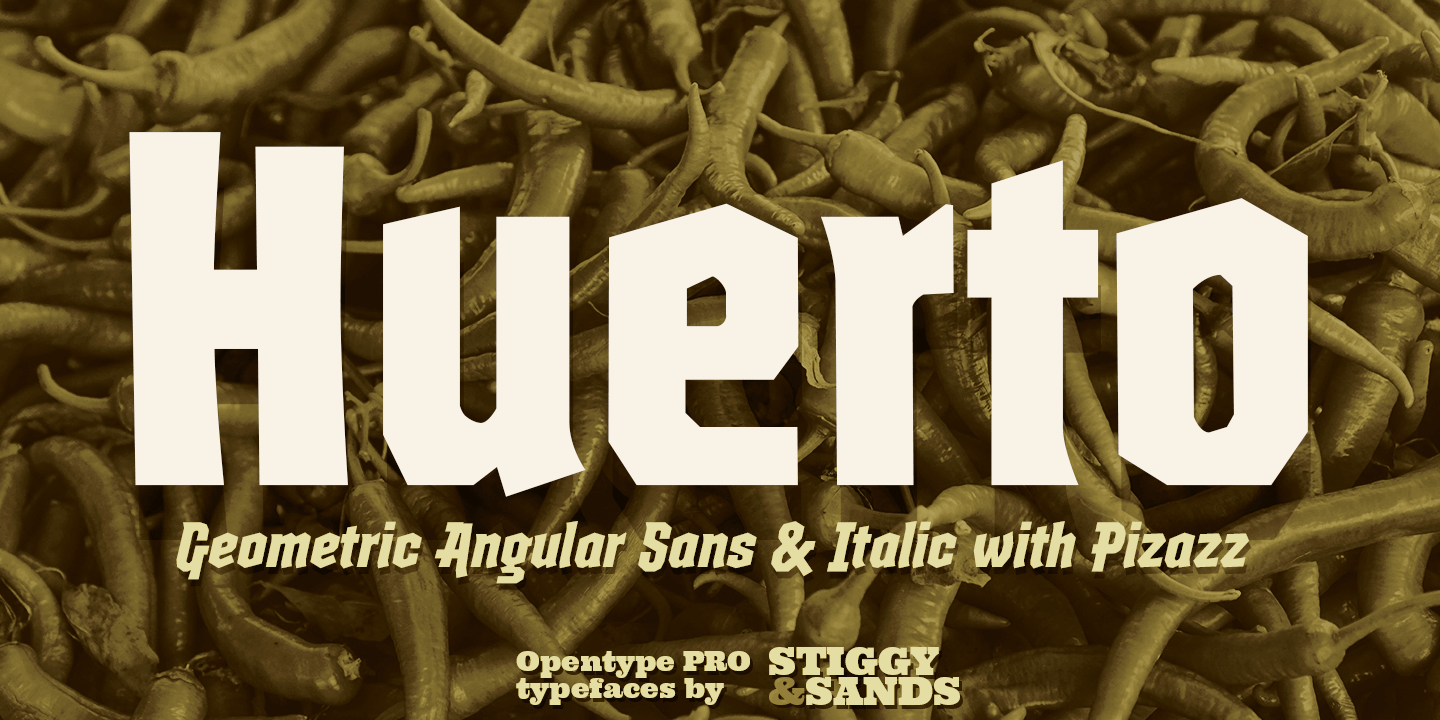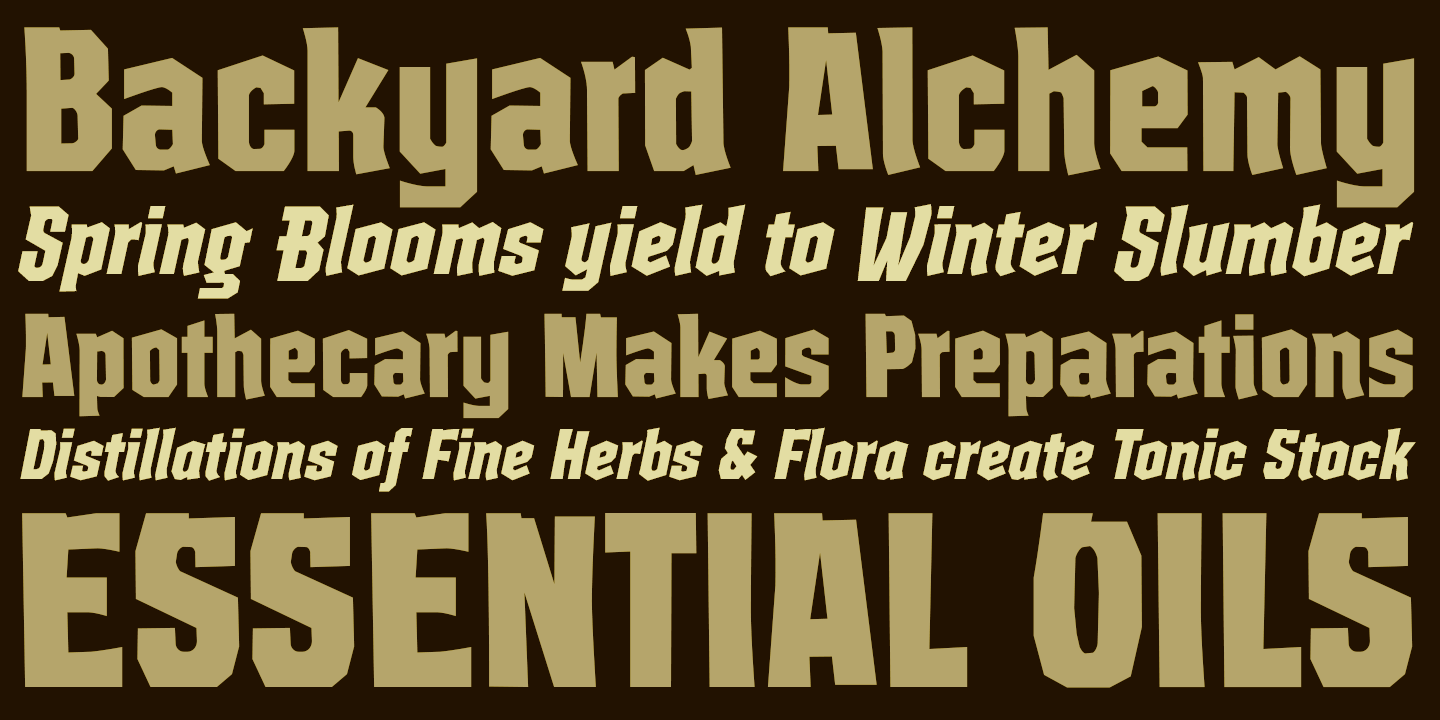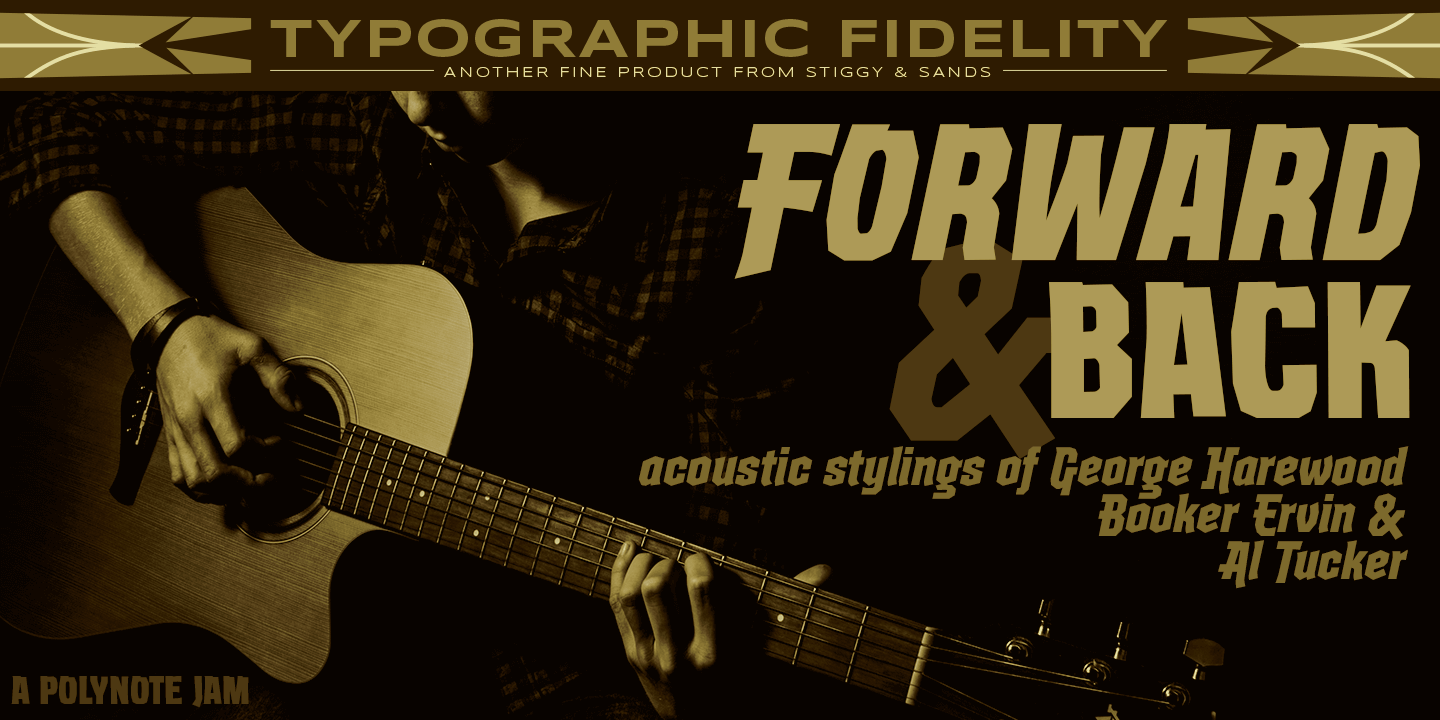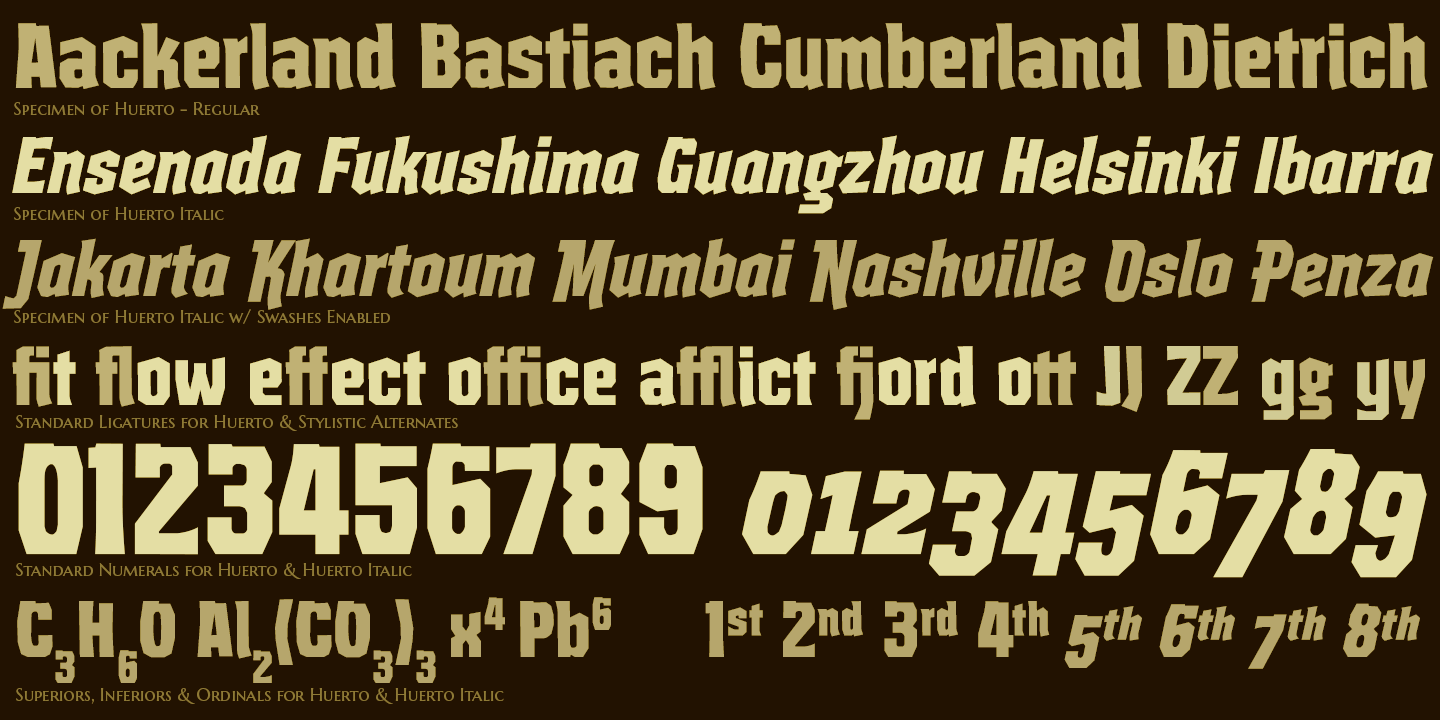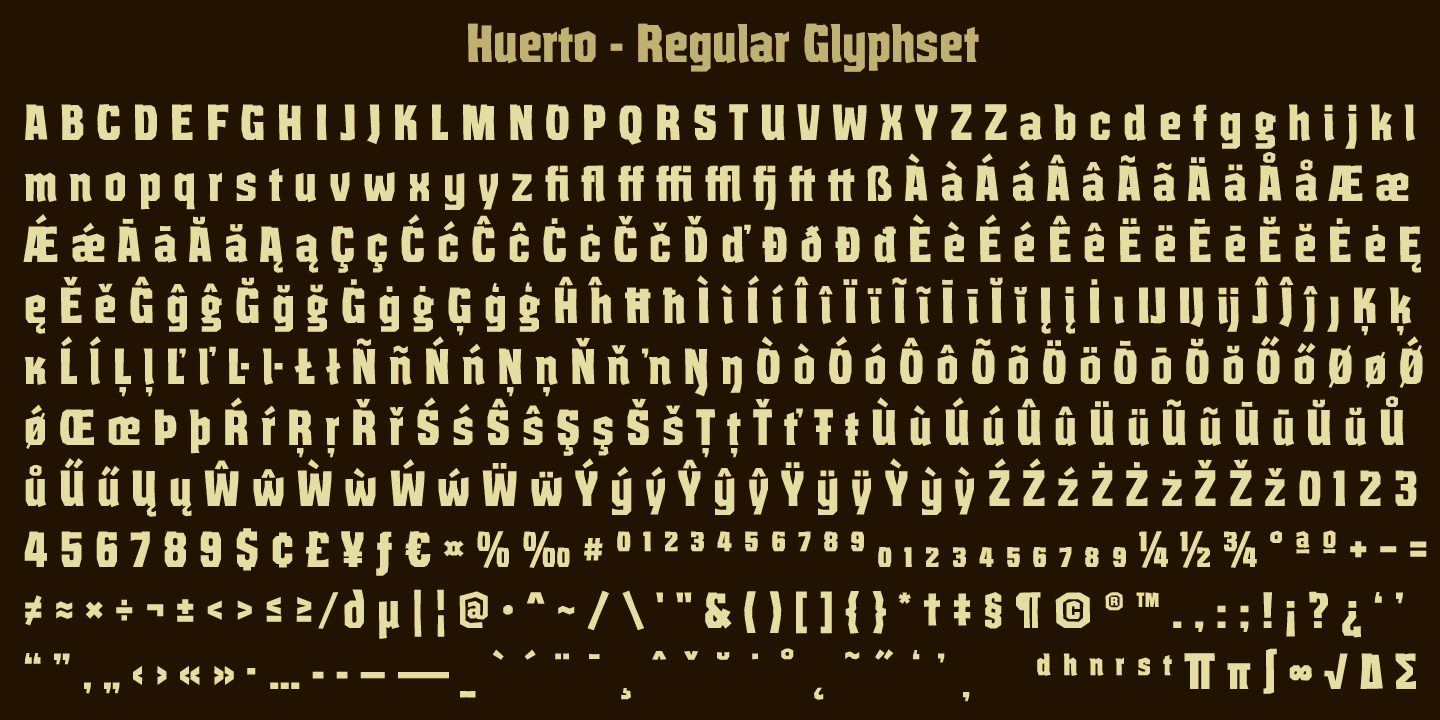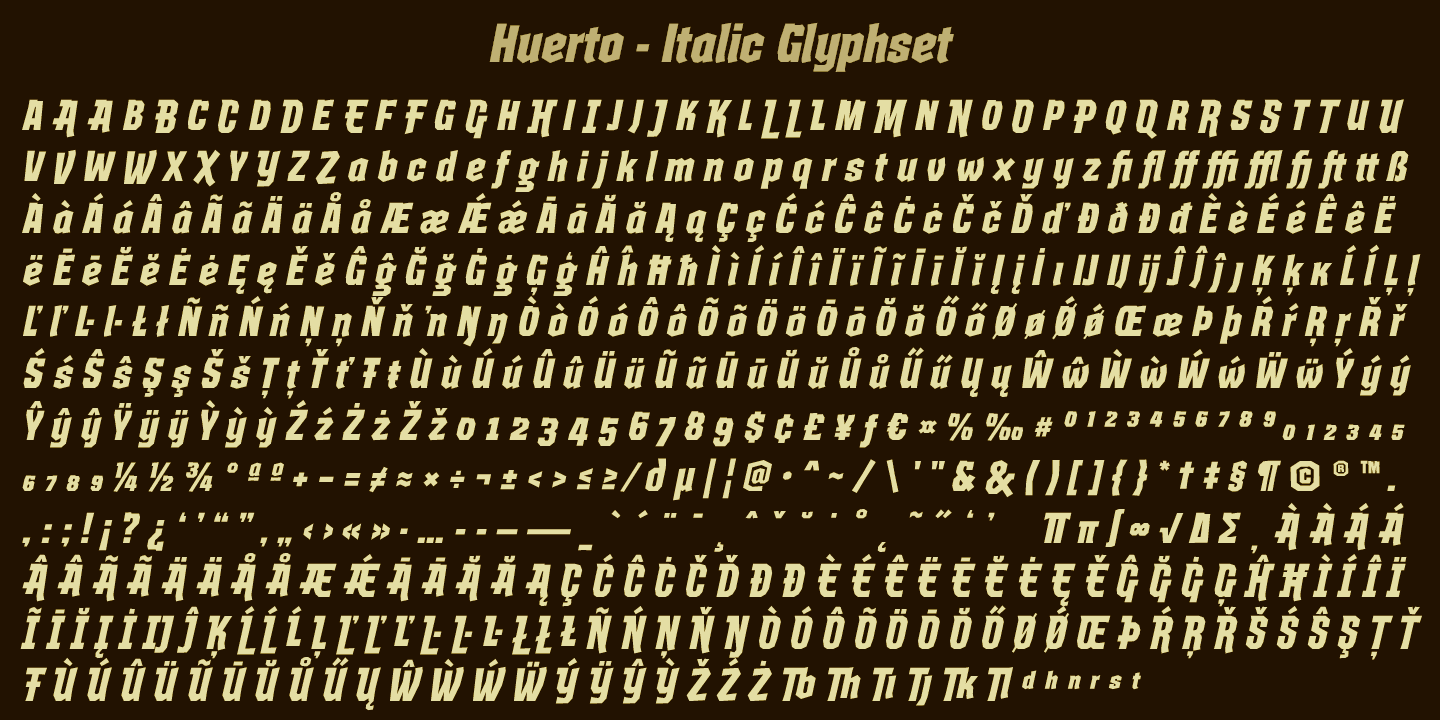
Huerto
Font Family by Stiggy & Sands
A Geometric Angular Sans & Italic with Pizazz
The Huerto Family began as a digitization of a film typeface from LetterGraphics known simply as "Horino Bold". The original specimen included standard Capitals and Lowercase, Numerals and limited punctuation.
We've fleshed out the original style and added a true italic with swash alternates to the family. Where the original had a feeling of rugged permanence to it, the italic with swashes adds a fleeting dynamic appeal.
Opentype features include:
- Full set of Inferiors and Superiors for limitless fractions.
- A small collection of Standard Ligatures.
- A small set of Stylistic Alternates
- Swash Capitals for the Italic style only.
Approx. 423 Character Glyph Set: Each style of Huerto comes with a glyphset that includes standard & punctuation, international language support, and additional features. Huerto Italic has a 565 character glyphset due to additional swash and alternates.